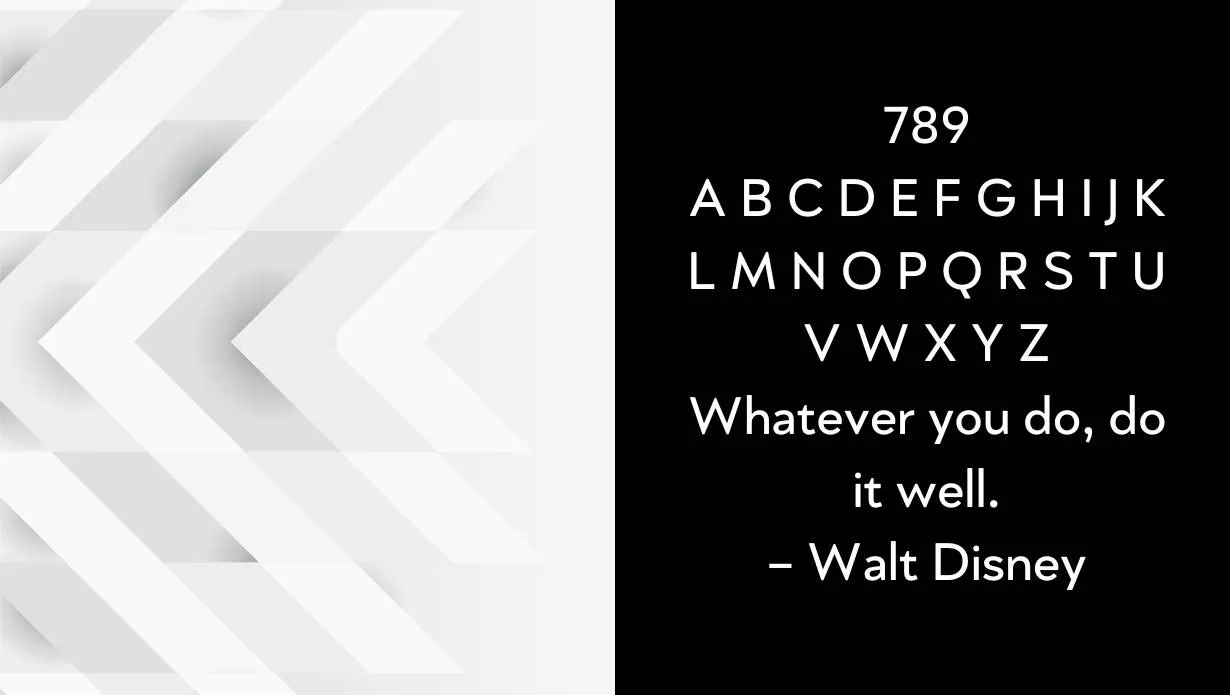
Rapor Font is a sans-serif typeface designed by Oğuzhan Cengi in 2002. The design is based on the grotesque typefaces that were popular in the early 20th century. The typeface has a large x-height and wide proportions, making it highly legible. The family includes six weights, from light to black, with matching italics.
The typeface includes a number of unique features, such as a small cap style, old-style figures, and fractions. It also includes a set of arrows, which can be useful for infographics or data visualizations.
| Name | Rapor Font |
| Designer | Oğuzhan Cengi |